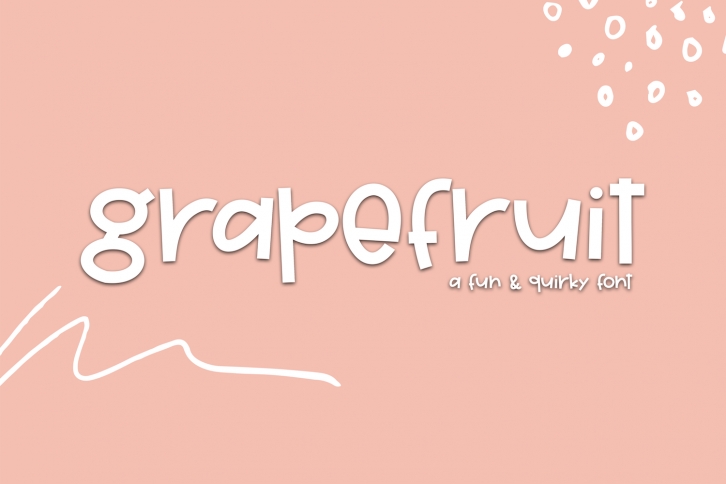
Grapefruit - A Fun & Quirky Font Download
Grapefruit is a beautiful font that was designed by KA Designs. It's a great choice for designers and creatives who need such a font. It was released on November 3, 2018 and the file size is 6.80 MB. Grapefruit may give a more youthful, expressive and casual look to your project. It is a very beautiful, refined, elegant, and high-quality font.